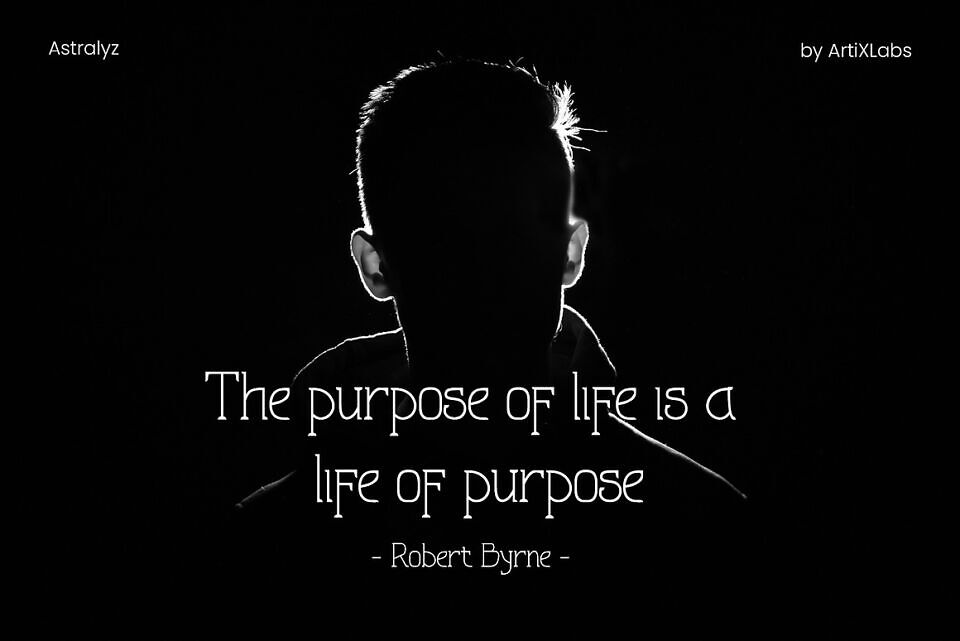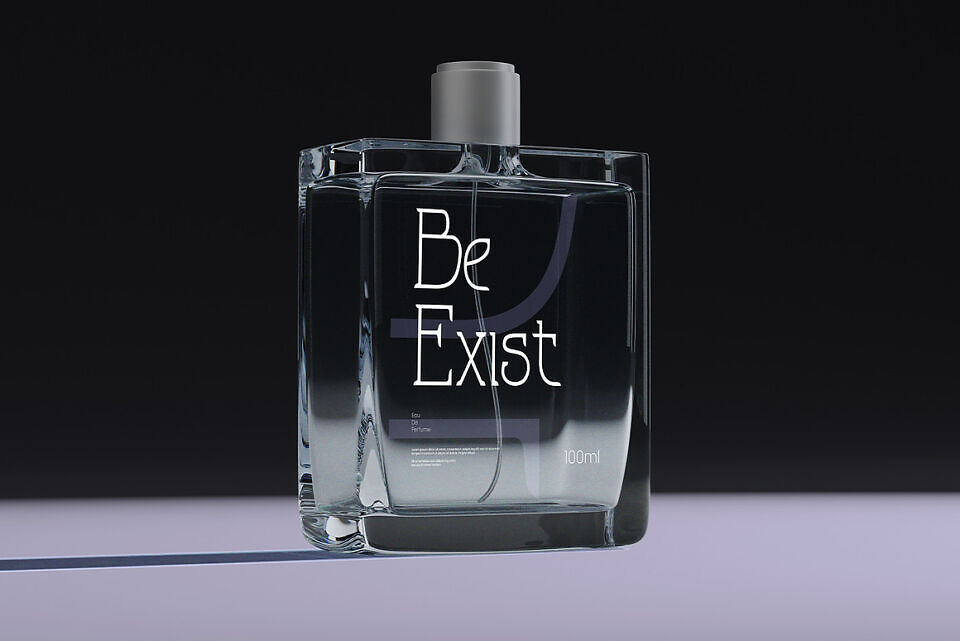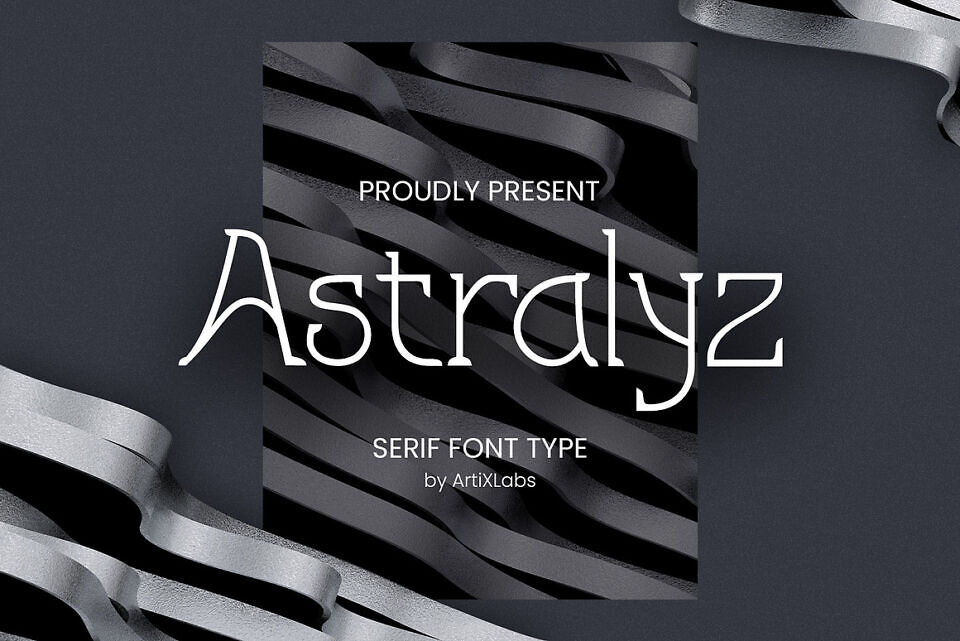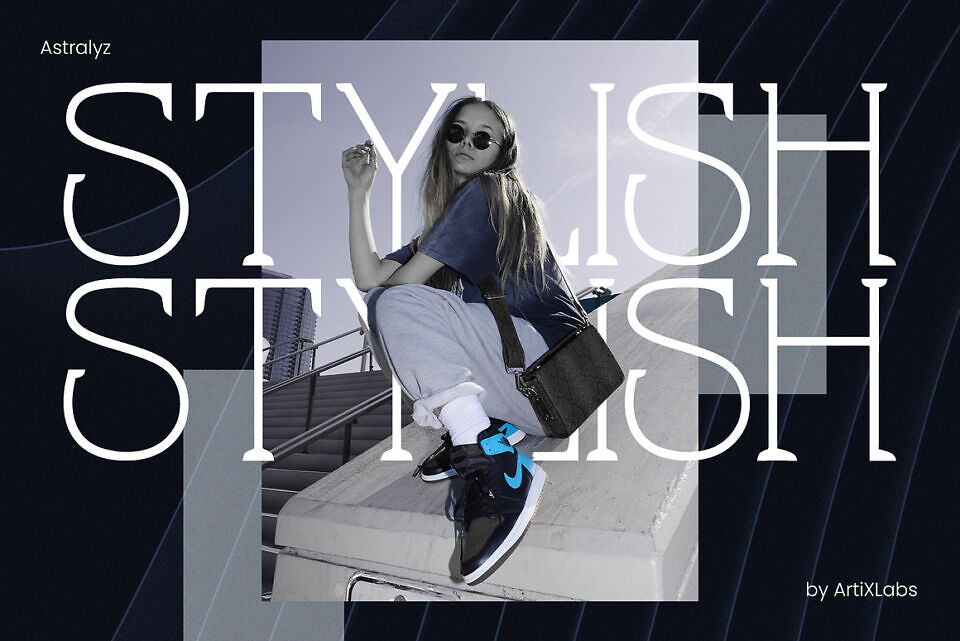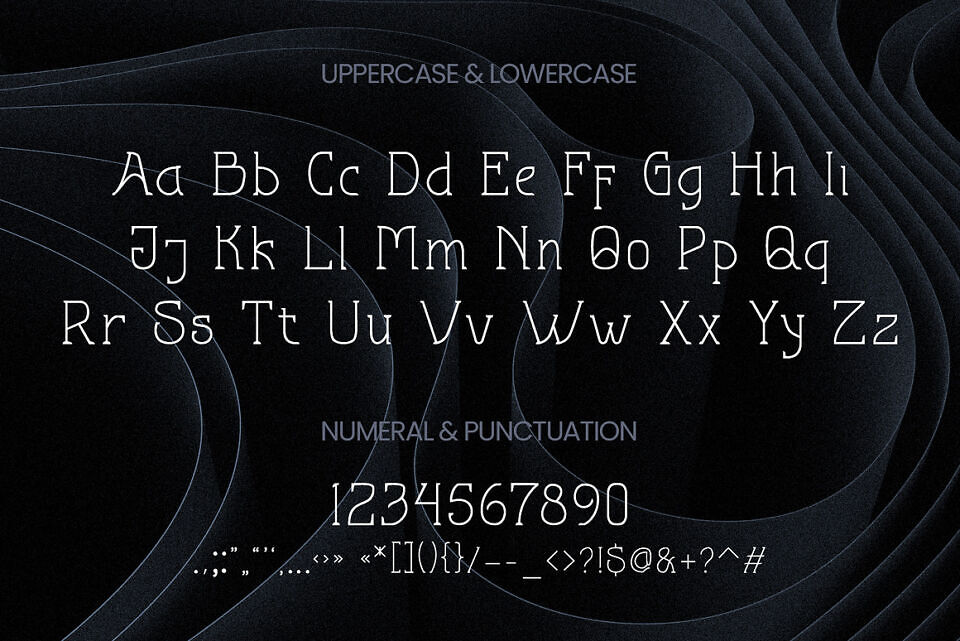
Astralyz is a lovely and timeless serif font. It is the best choice for creating eye catching logos, branding and quotes. Every letter has a unique and beautiful touch, which will make your design come alive!